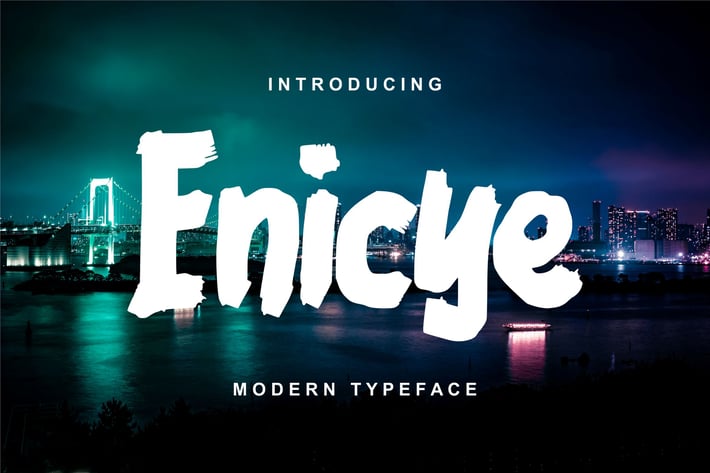
Enicye | Modern Typeface Font
Enicye | Modern Typeface Font with a calligraphy style, So beautiful on invitation like greeting cards, branding materials, business cards, quotes, posters, and more!